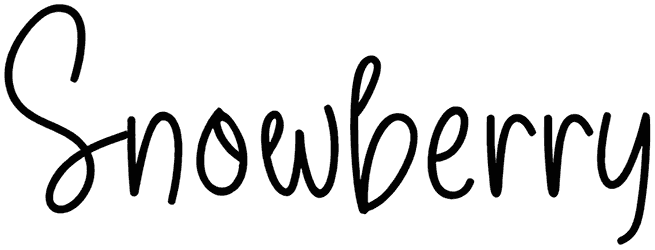
Snowberry Font
With this casual handwritten font, your text will have a realistic and cute face such as a text in a notebook. The Snowberry font is a fantastic selection for many projects, such as a bakery sign, labels for a boutique, or whatnot. Our script collection, like this item, could be inspiring for you. Visit and use your favorite items for your designs.
Snowberry is an exquisite handwritten font, masterfully designed to become a true favorite. It maintains its classy calligraphic influences while feeling contemporary and fresh.